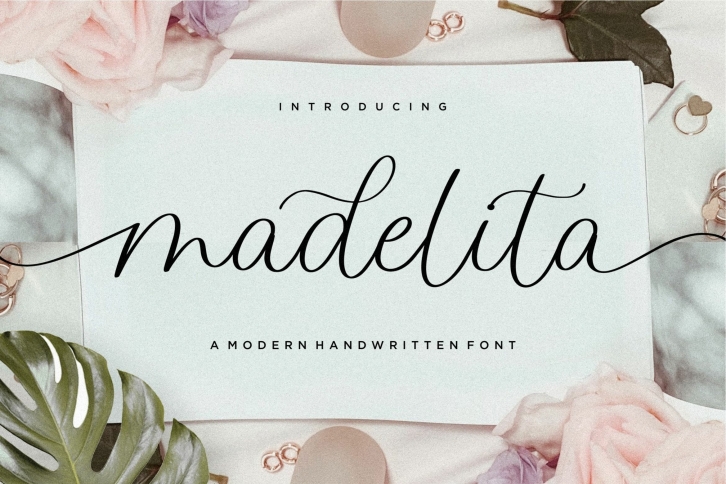
madelita Modern Handwritten is a great font that was designed by Balpirick. Imagine the amount of combinations you can create using this font! The archive is 21.8 MB and it was released on May 6, 2021. madelita Modern Handwritten looks beautiful on wedding invitations, greeting cards, logos, posters, labels, t-shirt designs, logos, business cards and is perfect for use in ink or watercolor works, fashion, magazines, packaging and food menus, children's books and more!